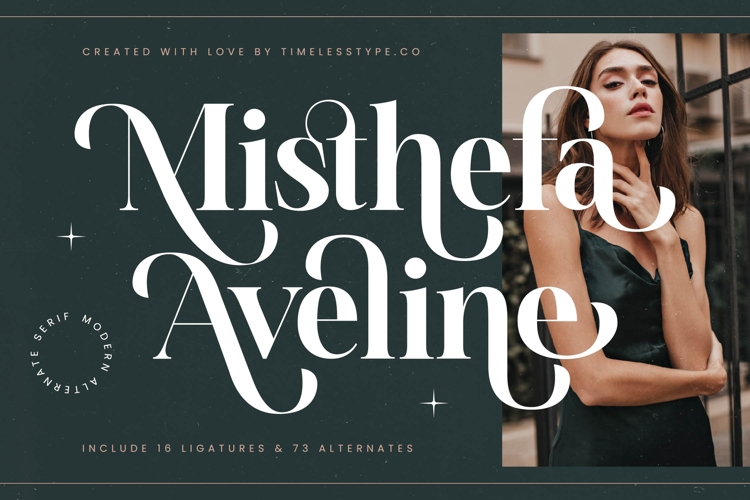
Misthefa Aveline - Modern Alternate Serif
Misthefa Aveline Typeface is a modern serif display font that exudes elegance, sophistication, and artistic flair. With 16 ligatures and 73 stylistic alternates, this typeface offers designers an extensive range of options to create refined and captivating typography. Its tall proportions, high-contrast strokes, and ornamental swashes make every character visually striking, perfect for projects where text must radiate luxury and presence. Misthefa Aveline blends classical serif refinement with contemporary details, making it a timeless choice for upscale and expressive design.